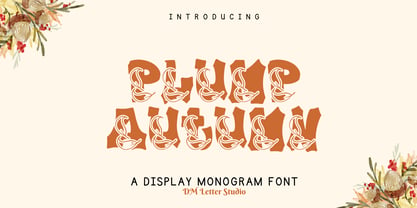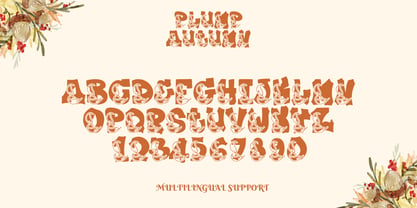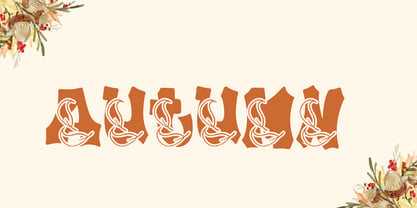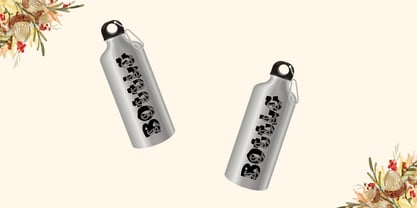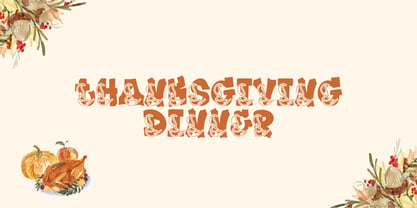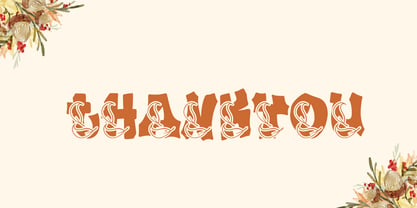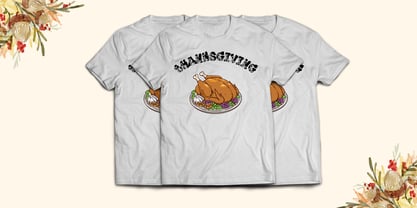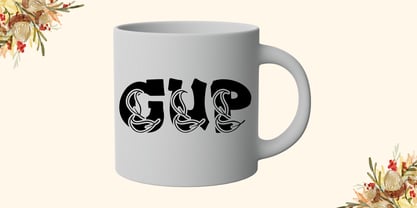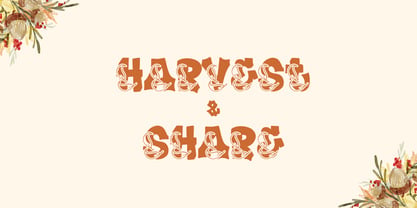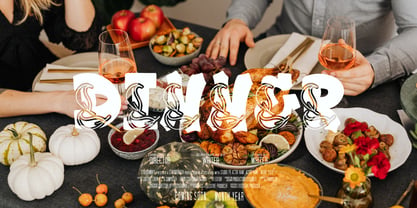
Meet Plump Autumn, the Display Font
Plump Autumn is a chunky, rounded display font made for cozy fall designs. It turns simple words into warm, eye-catching headlines with a friendly, handmade feel. Strokes stay bold and balanced, so every letter reads clearly on screens and in print. Because shapes are open and clean, small labels stay legible while big titles look extra juicy. Use it for autumn promos, seasonal logos, market posters, café menus, packaging, stickers, and quote graphics. As a result, your designs feel festive and welcoming without extra styling.
Fast layouts with the Plump Autumn font
Start with a short headline in Plump Autumn and keep it punchy. After that, add details in a clean supporting font for dates, prices, or product names. Because the letters are thick, give them breathing room with wider margins and a little extra line spacing. In addition, try simple shapes like badges, arches, or rounded rectangles to match the soft look. Finally, save palette pairs like pumpkin & cream, cocoa & beige, olive & ivory, or burgundy & sand to repeat across your listings.
Creative uses and quick wins
Fall sale banners, farmers market posters, and event flyers
Pumpkin patch logos, café boards, and seasonal menu headers
Sticker packs, label sets, and packaging seals
Quote posts, reels covers, and Thanksgiving cards
Design tips for Plump Autumn
Keep phrases short so the chunky style stays strong. Also, use simple outlines or a soft shadow when you need extra contrast on busy backgrounds. For print, export at 300 DPI. For web, export at 2× size so edges stay smooth. Finally, pair it with minimal icons like leaves, acorns, or doodle lines to keep the design fun but not crowded.